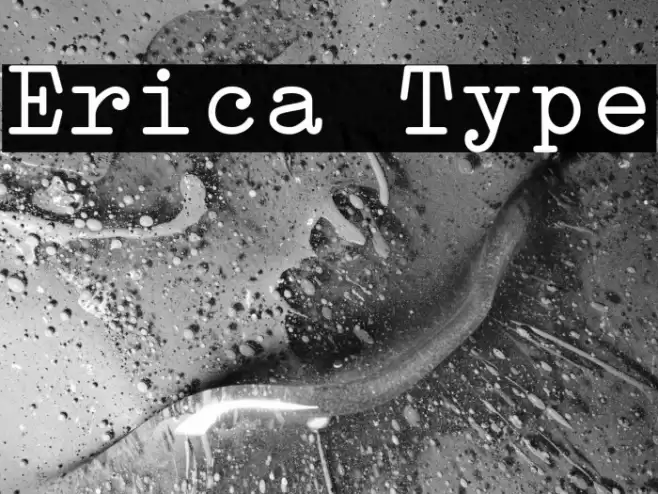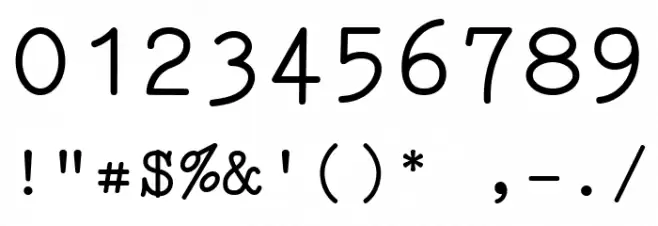
Erica Type Font
Erica Type Description
This font features a classic typewriter style with distinct slab serifs and a monospaced design. Each character is evenly spaced, providing a uniform appearance that is both functional and aesthetically pleasing. The uppercase letters are bold and commanding, while the lowercase letters maintain a consistent weight, contributing to a balanced and harmonious look. The numerals and special characters are clear and legible, making them suitable for a variety of applications. The font's overall appearance is reminiscent of vintage typewriters, offering a nostalgic feel that is perfect for projects requiring a touch of retro charm.
A classic typewriter-style font with slab serifs and monospaced characters from Uncategorized fonts.
- Proposed Projects: Ideal for retro-themed designs, coding projects, typewriter art, and any application requiring a vintage aesthetic.
- Overall Style: Vintage